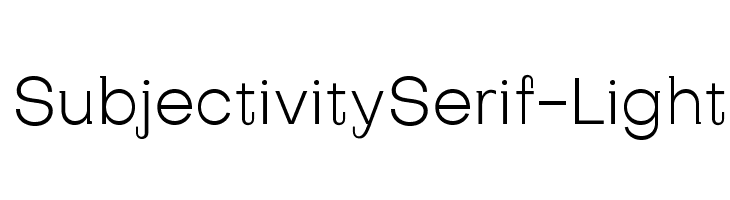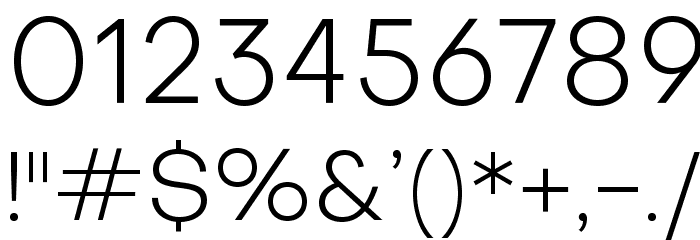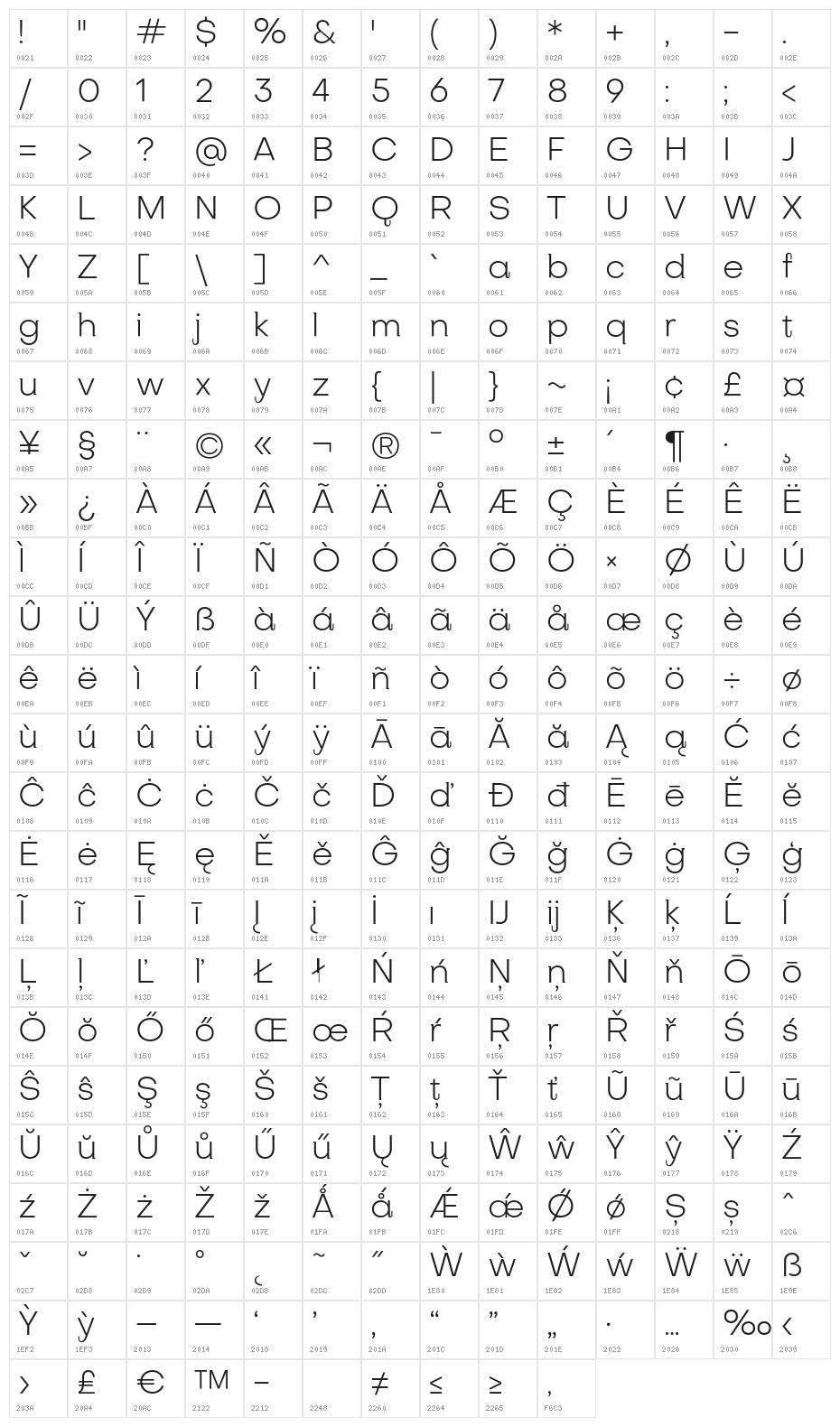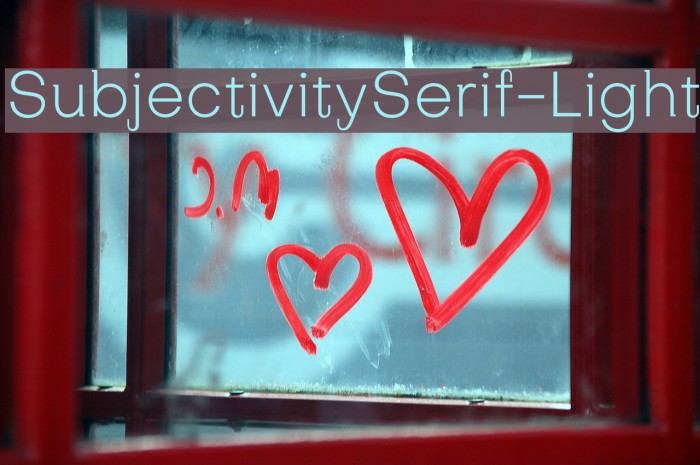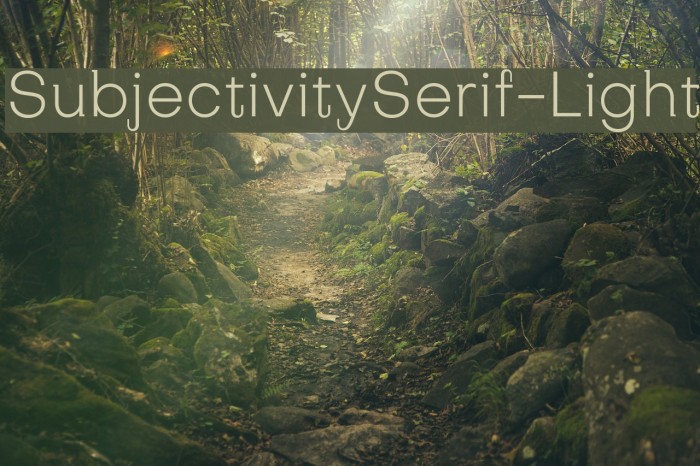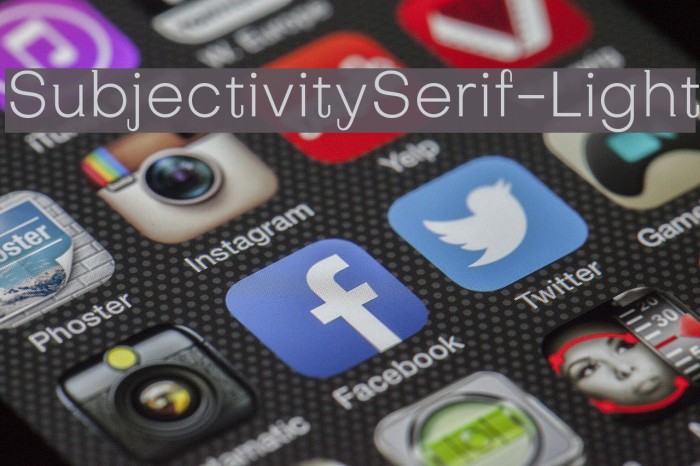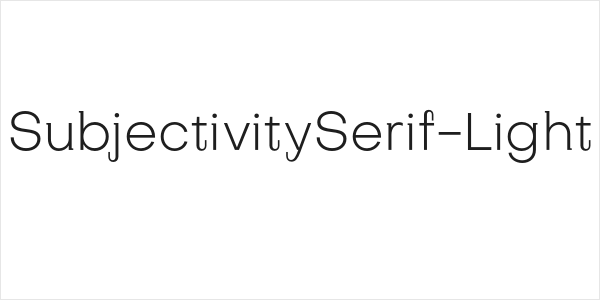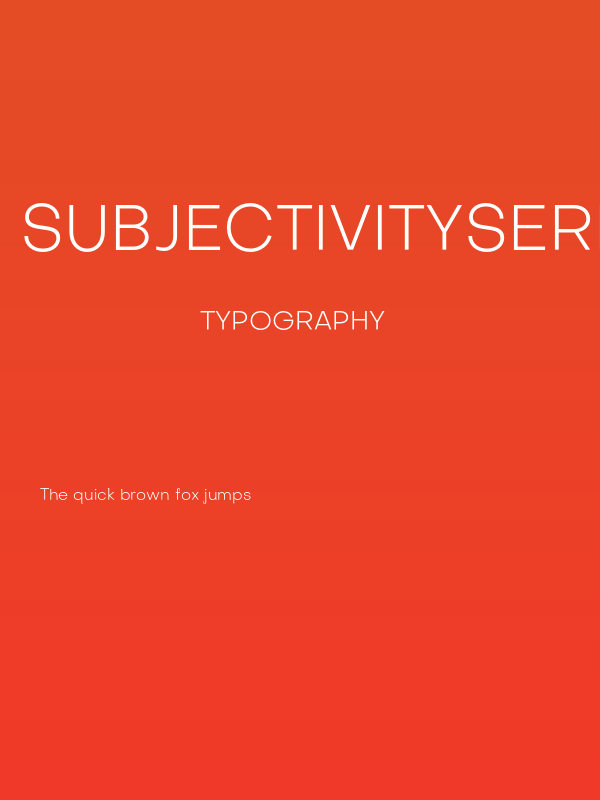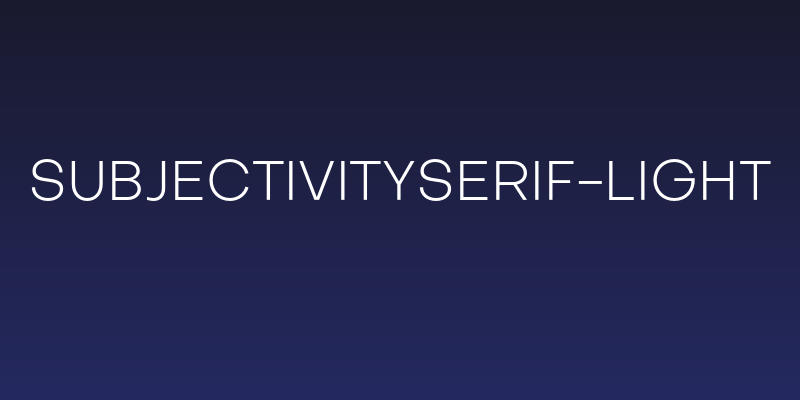
SubjectivitySerif-Light Font
SubjectivitySerif-Light Description
This font features a clean and modern design with a focus on simplicity and readability. The characters are evenly spaced with a consistent stroke width, providing a harmonious and balanced appearance. The uppercase letters are bold and assertive, while the lowercase letters maintain a friendly and approachable feel. The numerals are clear and distinct, making them easy to read. The special characters are well-integrated, complementing the overall style. This font is versatile, suitable for both digital and print media, and works well in various sizes.
| Proposed Projects | Ideal for branding, web design, editorial layouts, and advertising materials. |